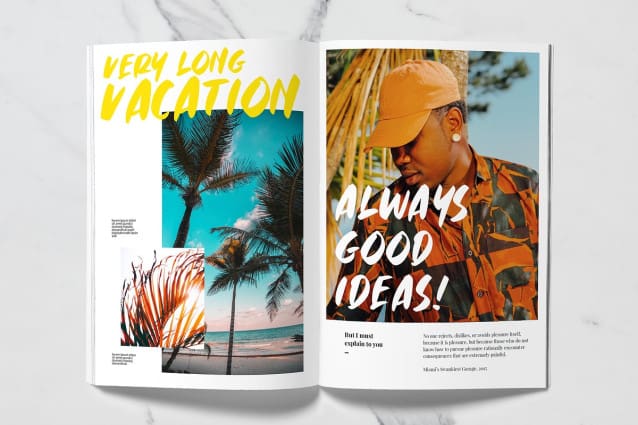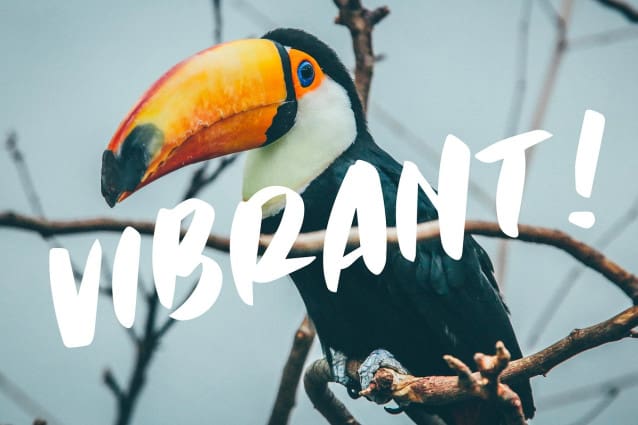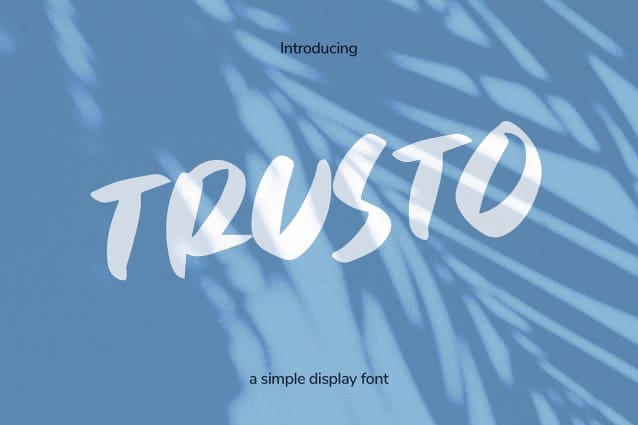
Trusto Font
Trusto Font a unique display font from Strokes.ink. This handy sans serif includes a full character, numbers, punctuation & also alternate version. Perfect for big displays, titles, posters, marketing & advertising.